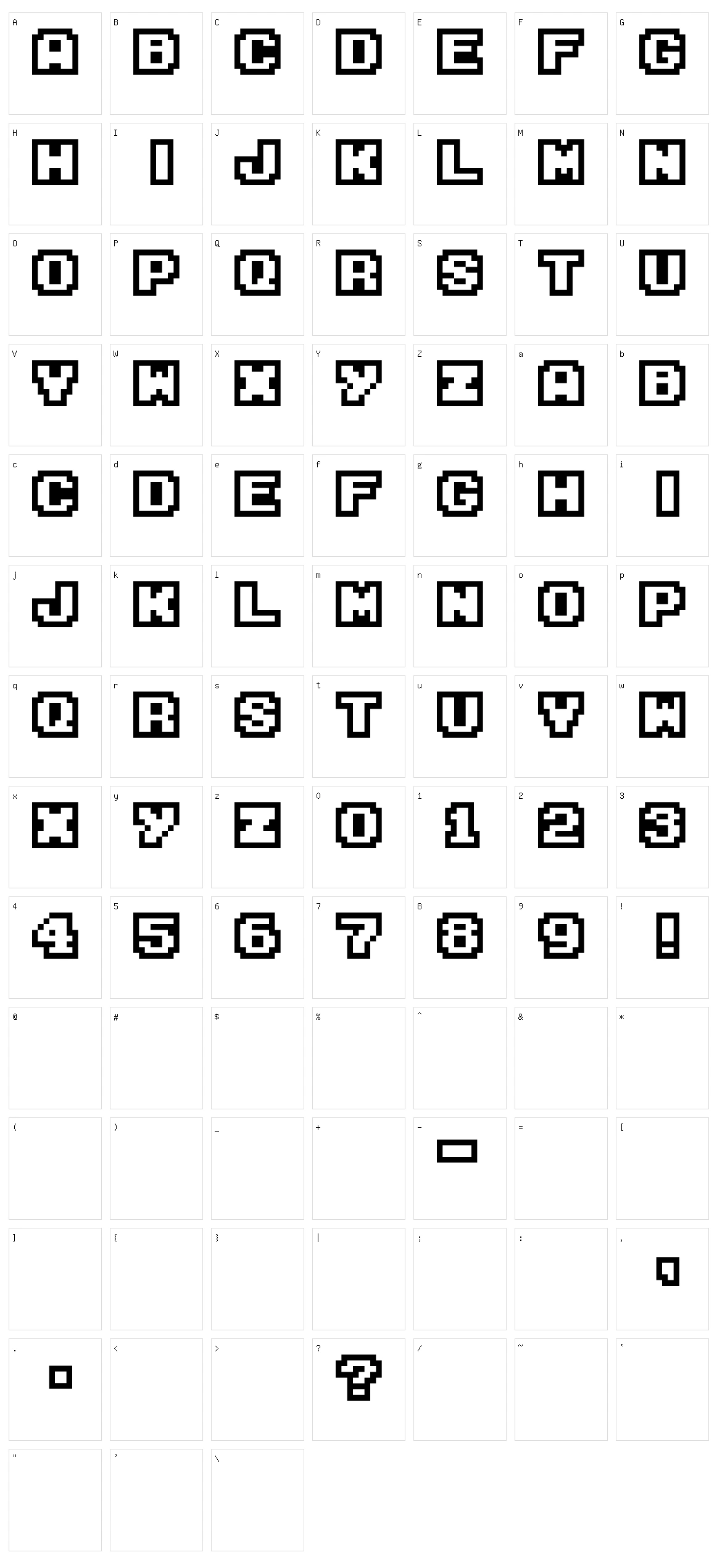
M04 Fatal Fury
Designed by: Miffies
M04_FATAL FURY & FATAL FURY BLACK (2000/8/11 Ver.2.0) for Windows
u‰ì˜T“`àƒVƒŠ[ƒY(1991`,SNK)v•—ƒtƒHƒ“ƒgB
‚¨“éõ‚݂́A‚¢‚í‚ä‚é‰ì˜TƒtƒHƒ“ƒgBSNK‚炵‚³‚ª‚æ‚­o‚Ä‚¢‚Ü‚·‚ˁB
uVvEuQvEu!vEu?vEu,v‚ɂ‚¢‚Ă͎è•`‚«‚Å‚·‚ª
ˆÓŠO‚ƈá˜aŠ´‚̂Ȃ¢Ždã‚ª‚è‚ɂȂÁ‚Ä‚¢‚邯Žv‚¢‚Ü‚·B
¡‰ñ‚͉Žæ‚è”Å(FATAL FURY)‚ƃxƒ^“h‚è”Å(FATAL FURY BLACK)‚Ì
2Ží—ނ𓯍«‚µ‚Ä‚¢‚Ü‚·B—¼ƒo[ƒWƒ‡ƒ“‚ðd‚˂Ďg—p‚·‚ê‚Î
‚ ‚Ì•¶Žš‚Ì•µˆÍ‹C‚ª—eˆÕ‚ɍČ»‚Å‚«‚Ü‚·B